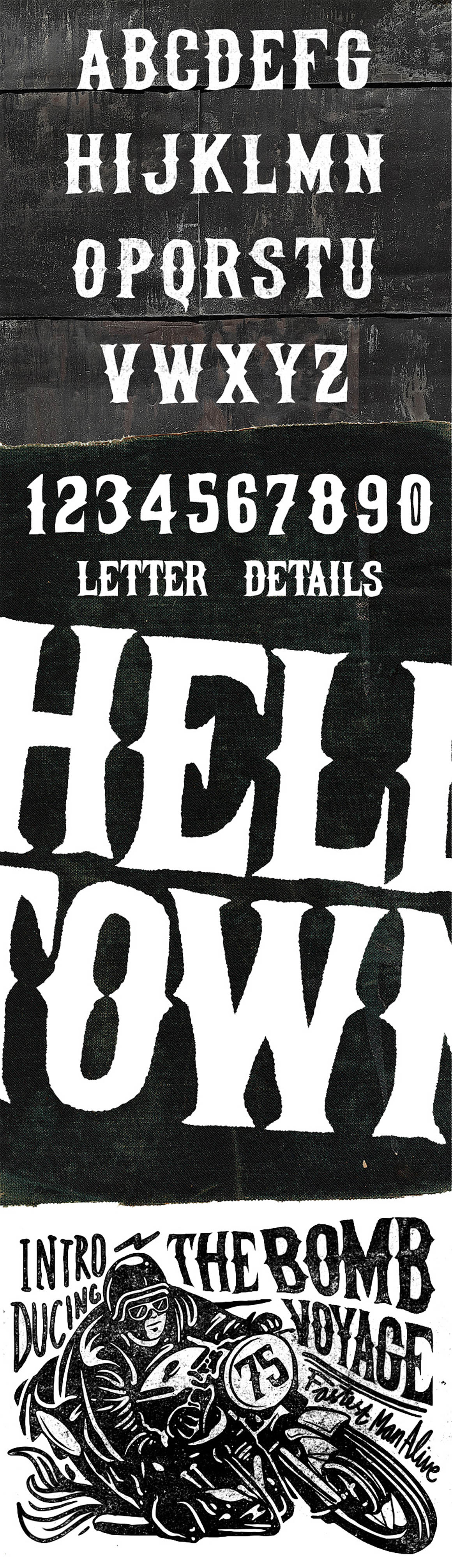
Helltown – Free Font
This cool & unique vintage style handdrawn custom font is from Ian Irwan Wismoyo. Great for your new vintage style artworks. Download & enjoy 😉